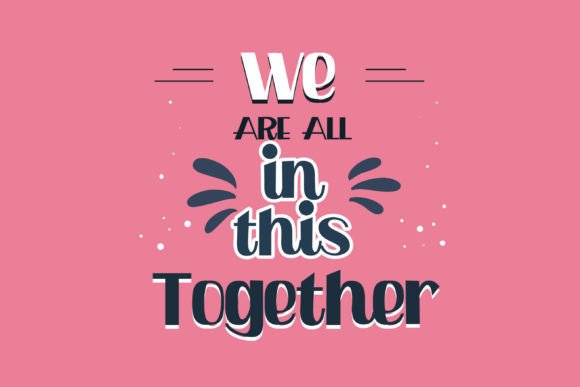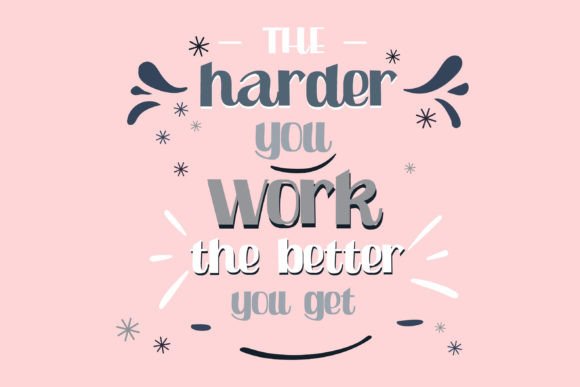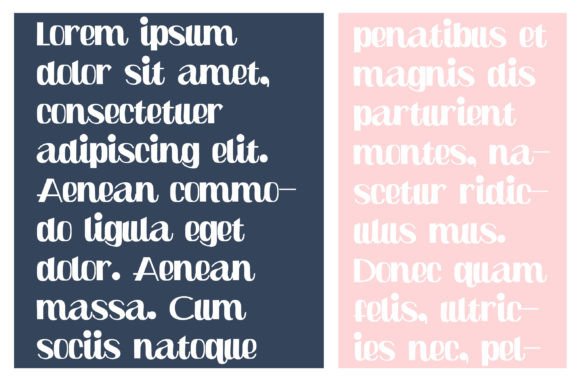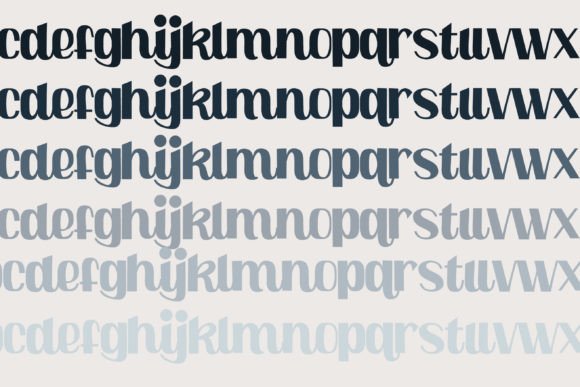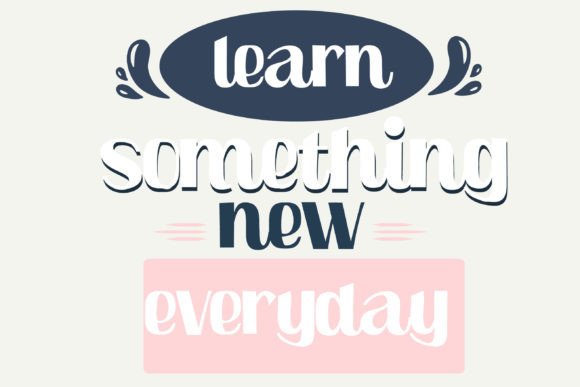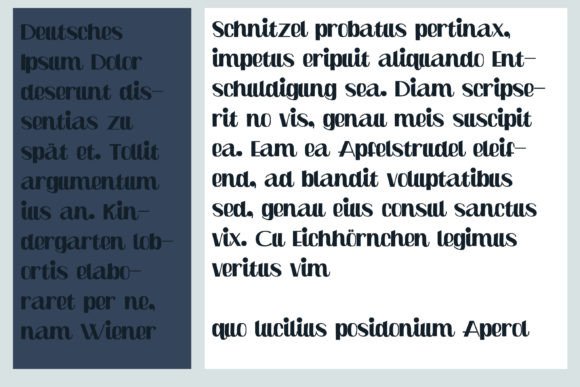
The Perfect Blend of Handwritten Charm and Typographic Perfection
As a designer, there’s nothing quite like the thrill of the creative process. It’s that moment when a project comes together, and every element seems to fall into place. For many of us, that perfect blend of style and substance is the key to creating truly unforgettable designs. And that’s where the Hughligan Font comes in – a stunning hand-crafted sans that adds a touch of handwritten charm to even the most mundane projects.
Whether you’re working on a logo, branding campaign, or wedding invitation, the Hughligan Font is the perfect addition to your design arsenal. Its script-like tails and elegant curves bring a level of sophistication and personality to any project, making it a valuable asset for designers looking to elevate their work.
Hughligan Font Key Features
- Font Family: Hughligan Font is a sans-serif font family designed specifically for display purposes.
- Character Set: Supports a wide range of characters, including Latin, Cyrillic, and Greek scripts.
- Unique Characteristics: Hughligan Font features a distinctive, condensed design with a strong x-height, making it ideal for headlines and titles.
Hughligan Font Review
After giving the Hughligan Font a thorough examination, I must say it’s a unique and interesting choice for designers looking for a distinctive font.
- Uniqueness: The font’s playful and quirky design sets it apart from more common fonts, making it perfect for projects that need a touch of whimsy.
- Legibility: Despite its unusual design, Hughligan is surprisingly legible, especially at larger font sizes.
- Customization: The font offers a range of weights and styles, allowing designers to customize their projects to suit their needs.
- Readability at small sizes: While Hughligan is legible at larger sizes, it can become difficult to read at smaller font sizes, which may limit its use in certain applications.
- Lack of consistency: The font’s irregular design can make it challenging to maintain consistency across different elements of a project.
The Hughligan Font is a great choice for designers who want to add a touch of personality to their projects. While it has its limitations, its unique design and customization options make it a valuable addition to any font library.
For best results, use Hughligan Font in combination with bold or italic styles to add emphasis and visual interest to your designs.
Experiment with different font sizes and colors to create a unique and eye-catching visual effect.
Hughligan Font is ideal for use in creative projects such as:
Party and event promotions
Branding and logo